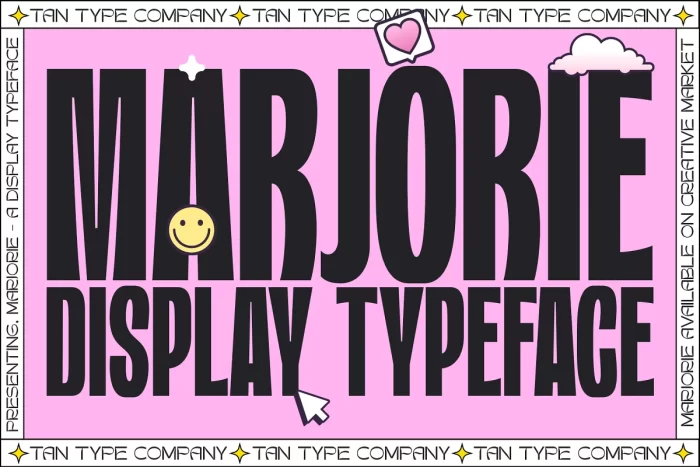
Tan Marjorie is a bold sans serif display font. Groovy. Perfect for any of your design needs. The font is suitable for any branding project like logo, t-shirt printing, esports, and many more with outstanding in a wide range of contexts.